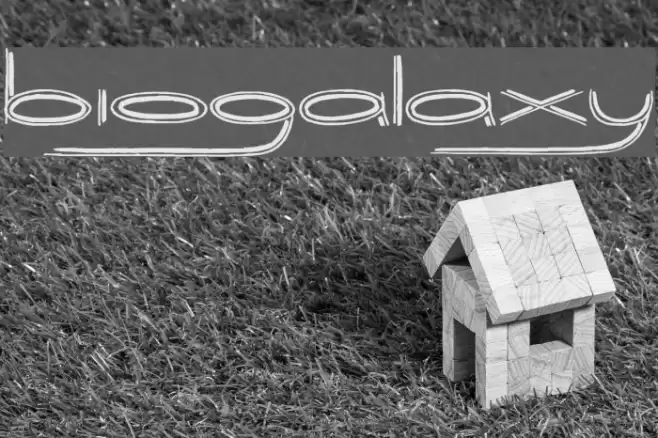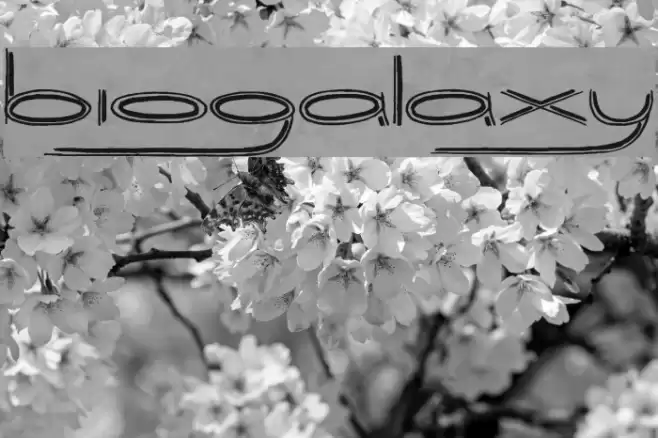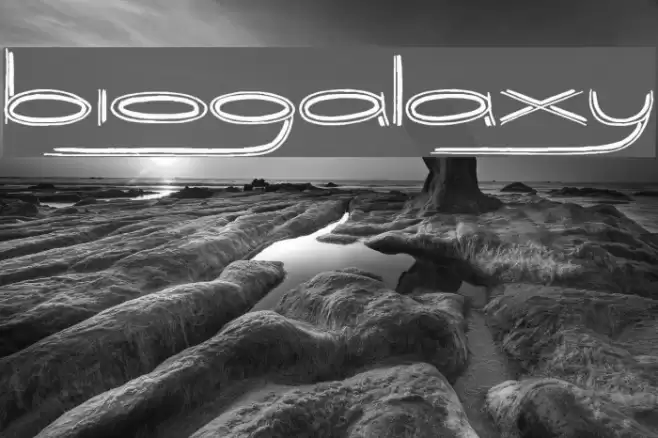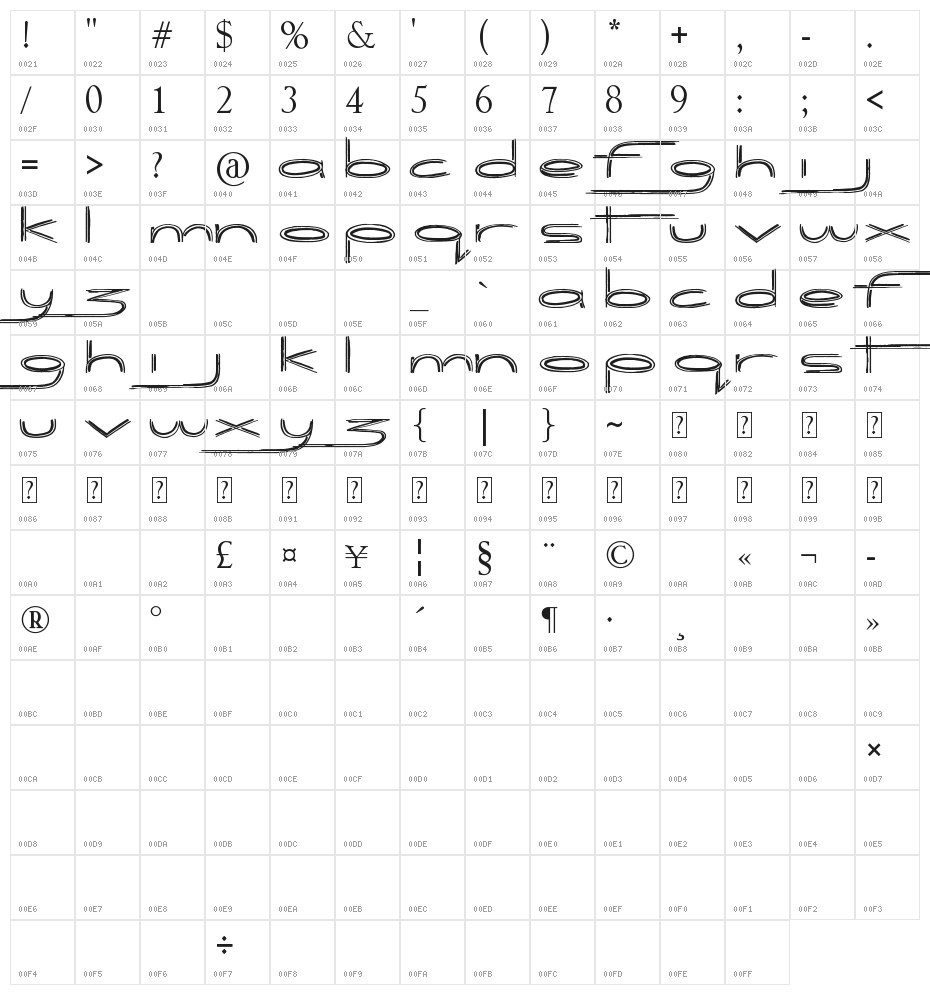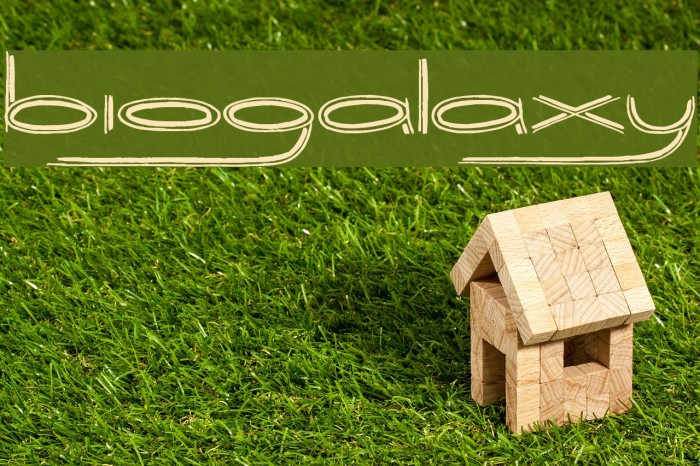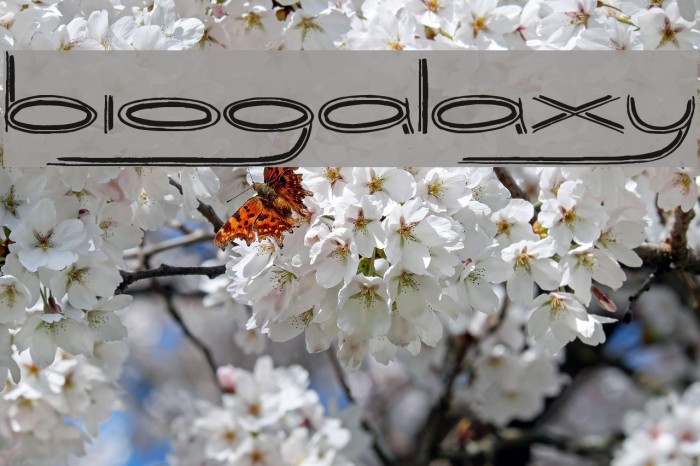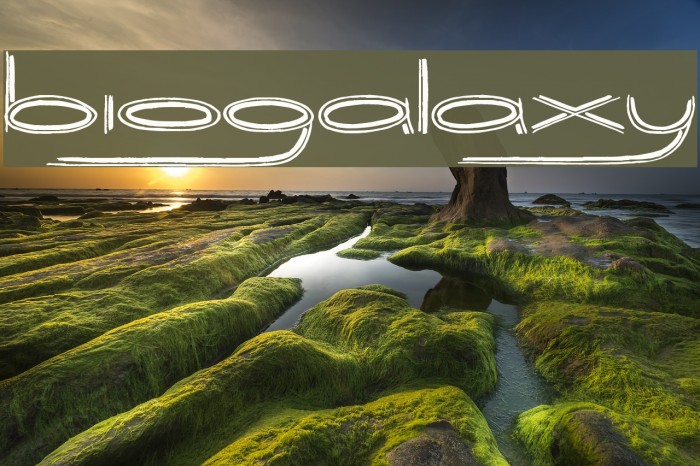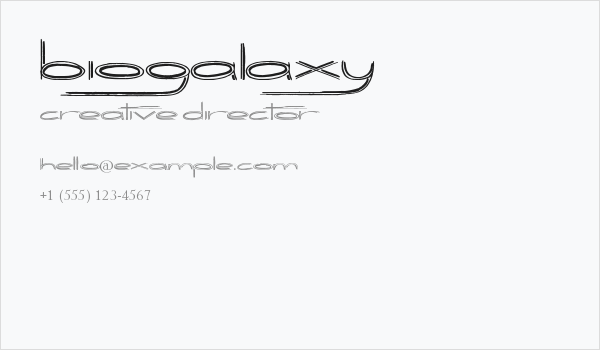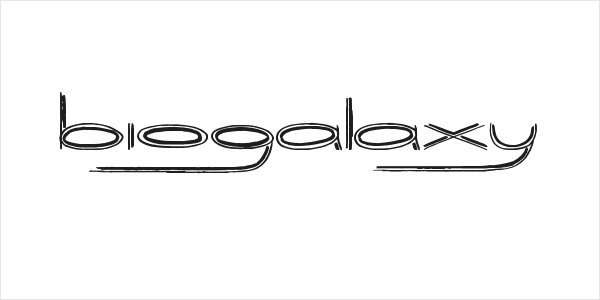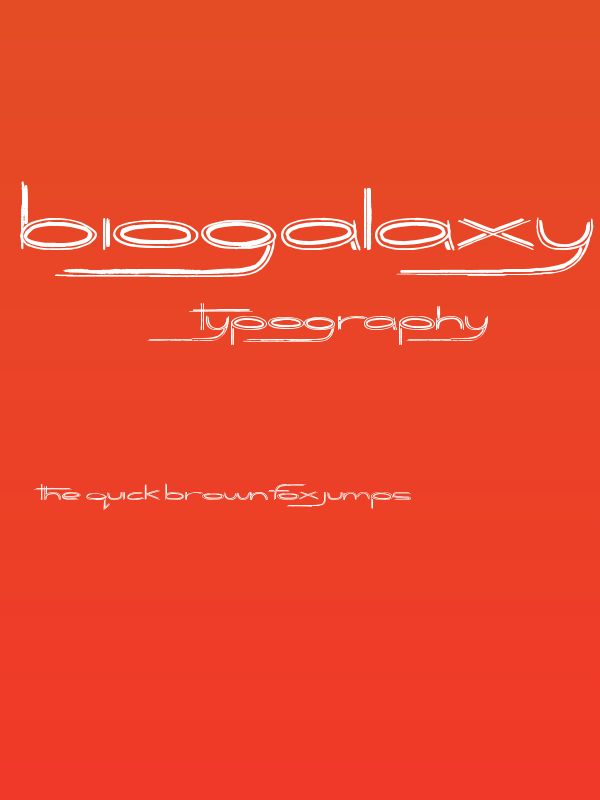
Biogalaxy Font
Biogalaxy Description
This font features a futuristic and sleek design with elongated and curved letterforms. The uppercase and lowercase characters exhibit a consistent style, with smooth lines and a sense of motion. The numerals are bold and clear, maintaining the overall aesthetic. Special characters are uniquely styled, adding to the font's distinctiveness. The design is modern and eye-catching, suitable for projects that require a contemporary and innovative look.
A futuristic and sleek font with elongated, curved letterforms from Uncategorized fonts.
- Proposed Projects: Ideal for sci-fi themed designs, technology branding, modern posters, and innovative product packaging.